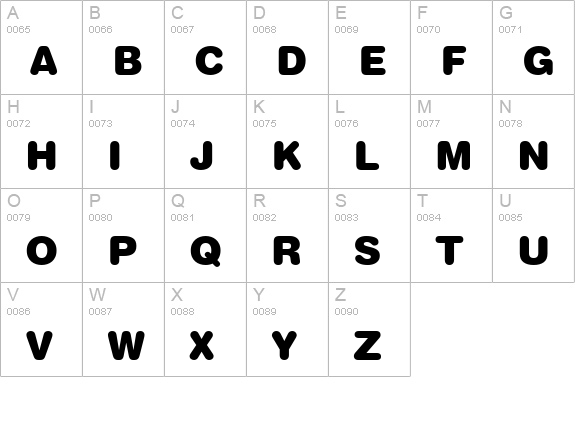
Context Rounded Black SSi Black is a maximum-weight, dramatic variant in the Context typeface family \xE2\x80\x94 well suited to maximum-impact headlines, posters, and packaging.
The Context Rounded Black SSi Black font is a sleek and modern typeface that exudes sophistication and elegance. Its bold, rounded design makes it perfect for creating eye-catching headlines, logos, and branding materials. With its strong presence and clean lines, this font commands attention and adds a touch of professionalism to any project. Best of all, the Context Rounded Black SSi Black font is available for free download at FontsMarket.com. This means you can easily access this stylish typeface and enhance your designs without any cost. Whether you're working on a print project, web design, or any creative endeavor, this font is a versatile and powerful tool that will help you achieve stunning results. Download it today and elevate your design game with the Context Rounded Black SSi Black font.